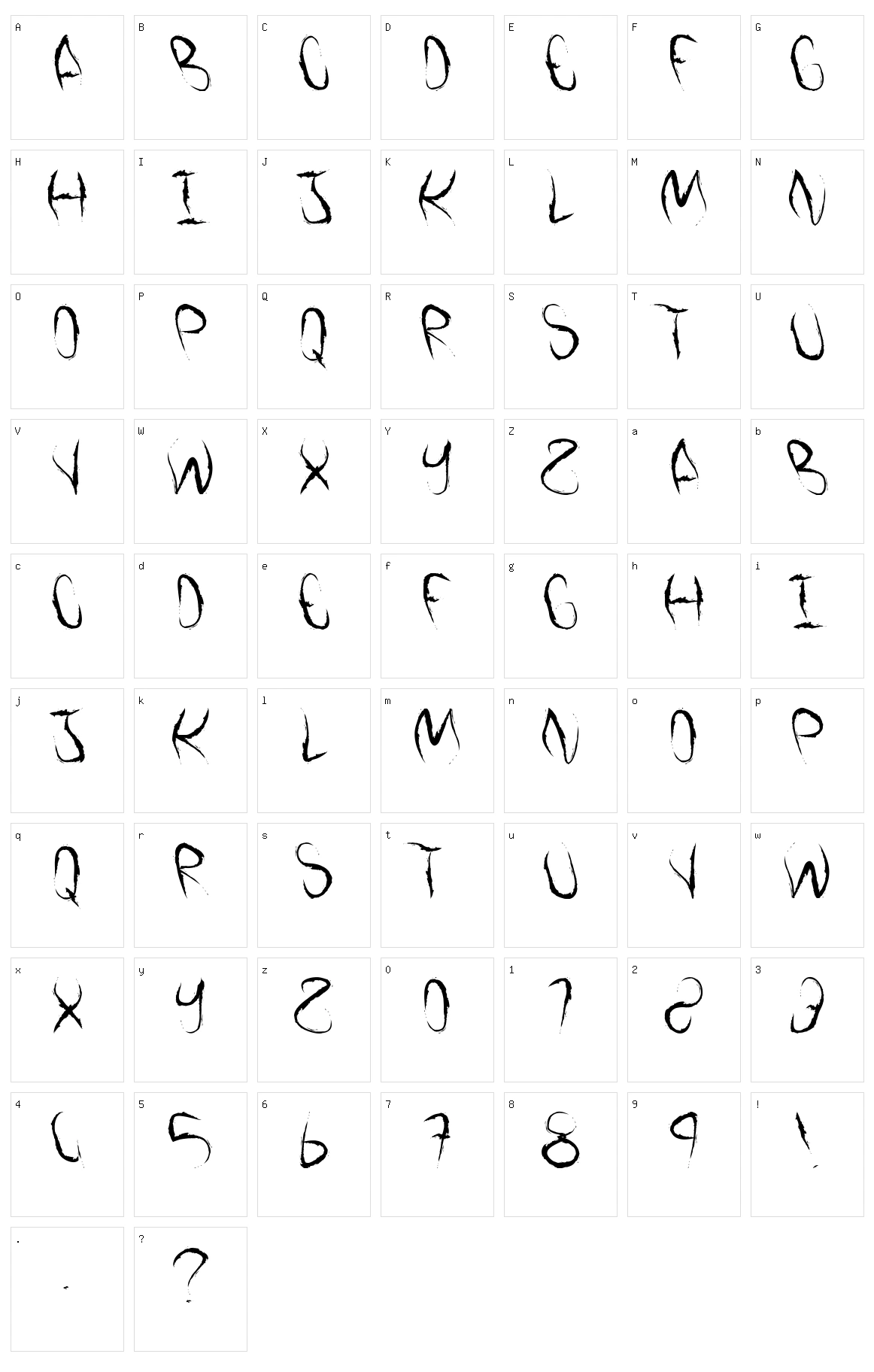
The free font Vamos a la playa is carefully designed by Qkila, showcasing a thoughtful balance of creativity and usability and falls under the Script font style. When you download the ZIP file, it contains only 90.72 KB of font files, making it lightweight and quick to download. Please review the license details below to understand permitted usage and distribution rights. If license information is not available, we recommend using this font for personal projects only or contacting the author directly for commercial usage permissions.